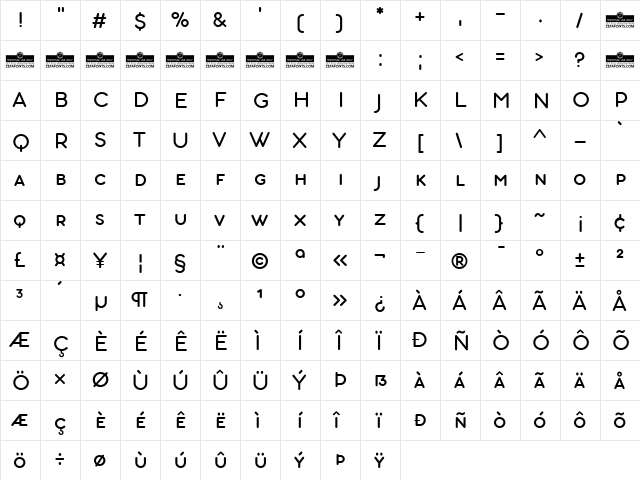
Aristotelica Small Caps Regular
| Foundry | Zetafonts |
| Designer | Francesco Canovaro |
Design Context for Aristotelica Small Caps Typeface
Aristotelica Small Caps is a composed and adaptable typeface that performs quietly and consistently across a wide range of design contexts.